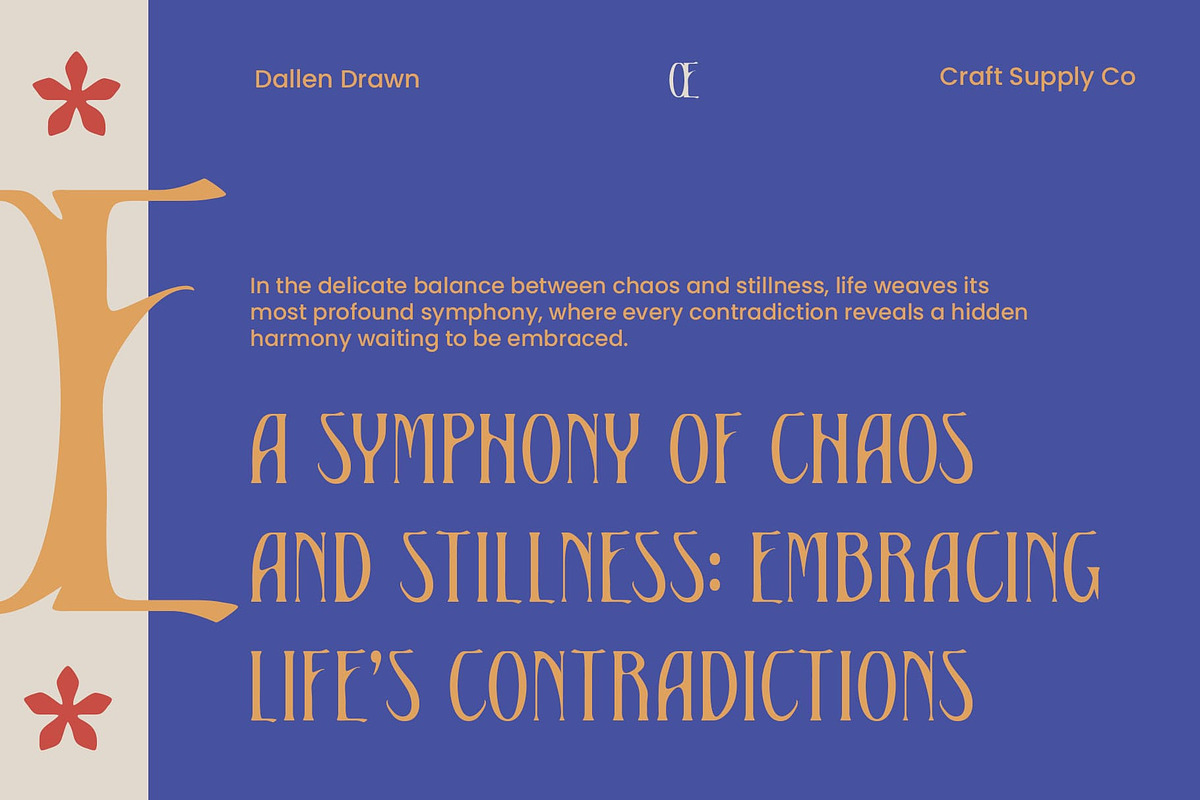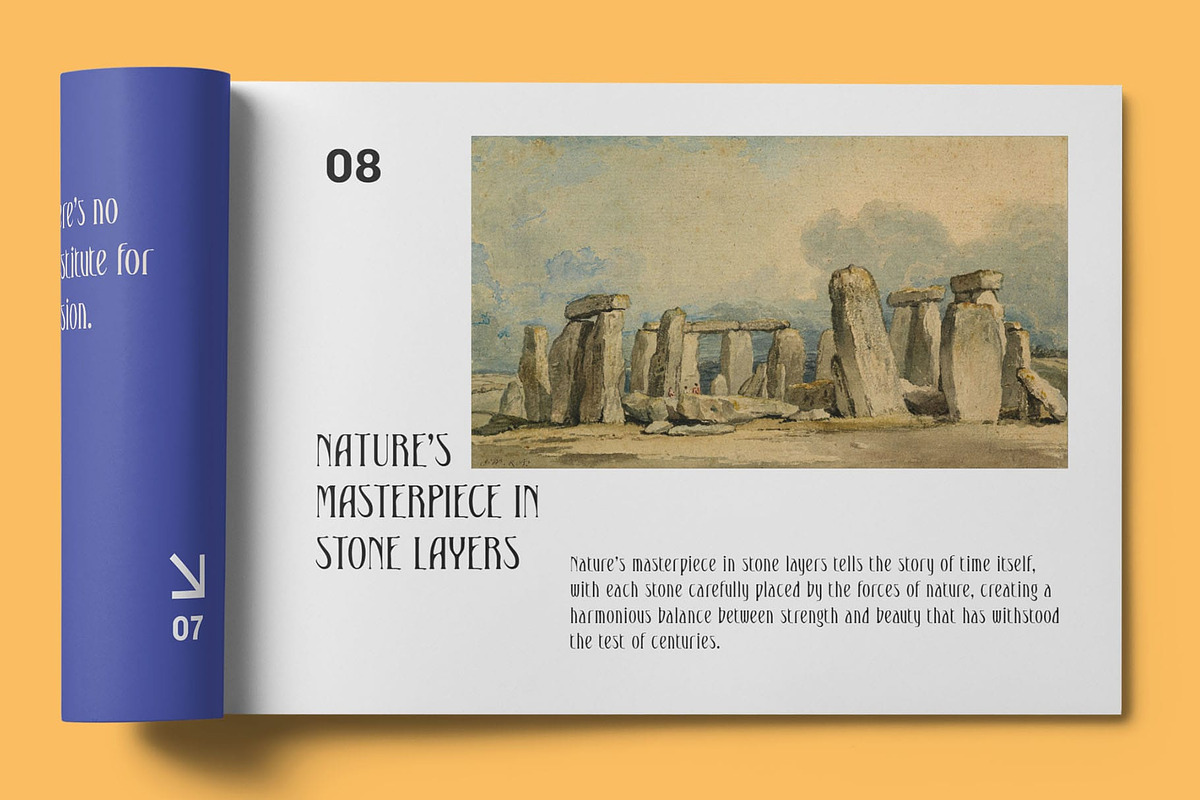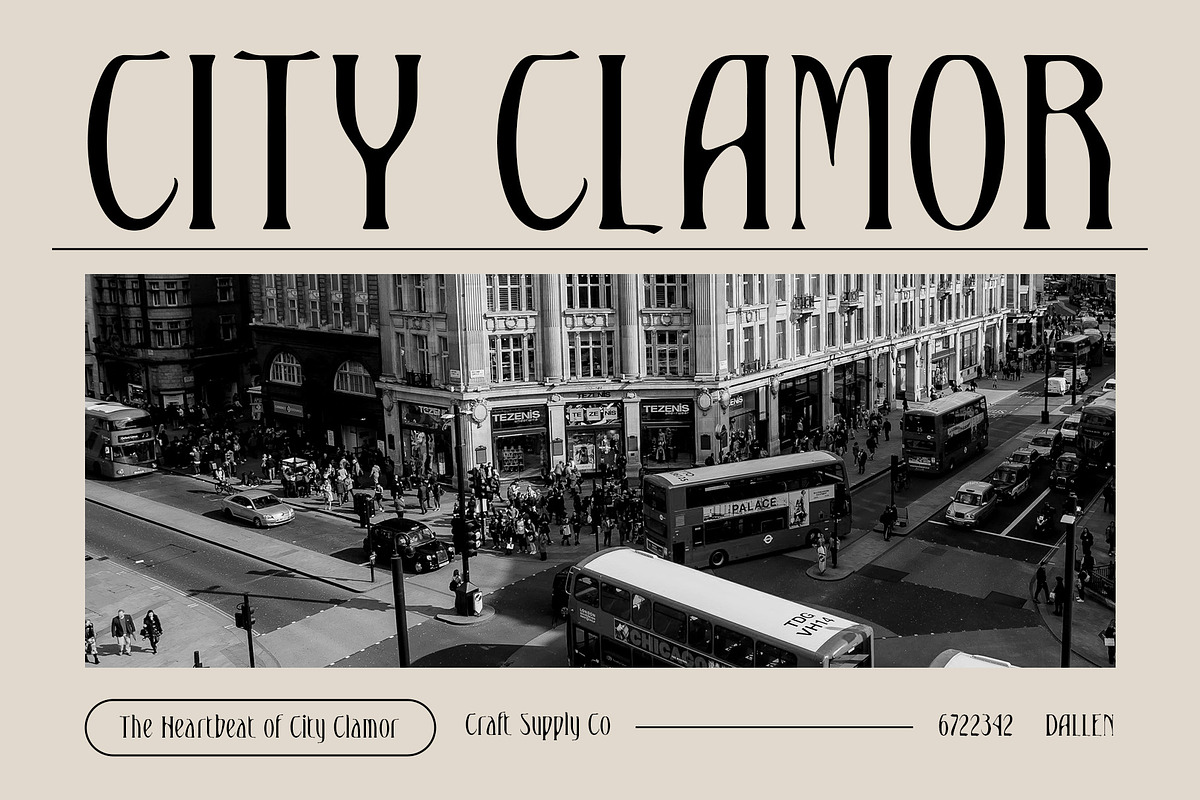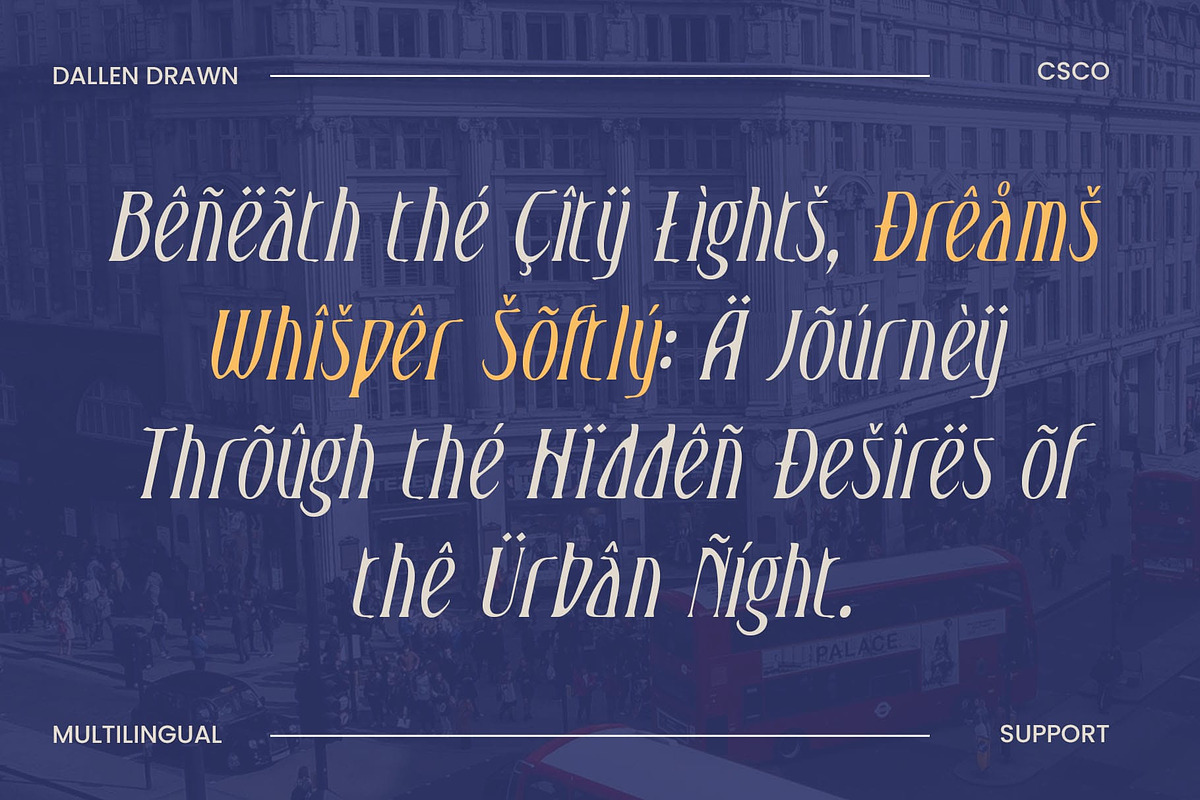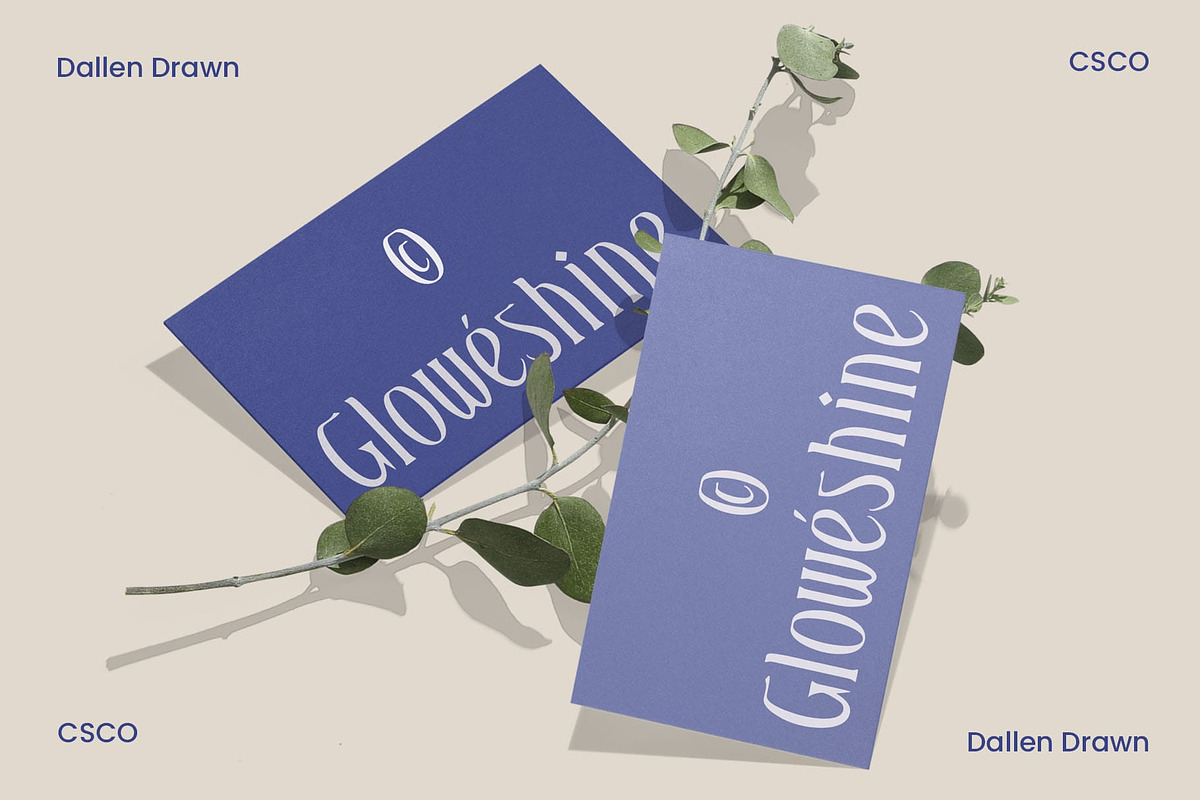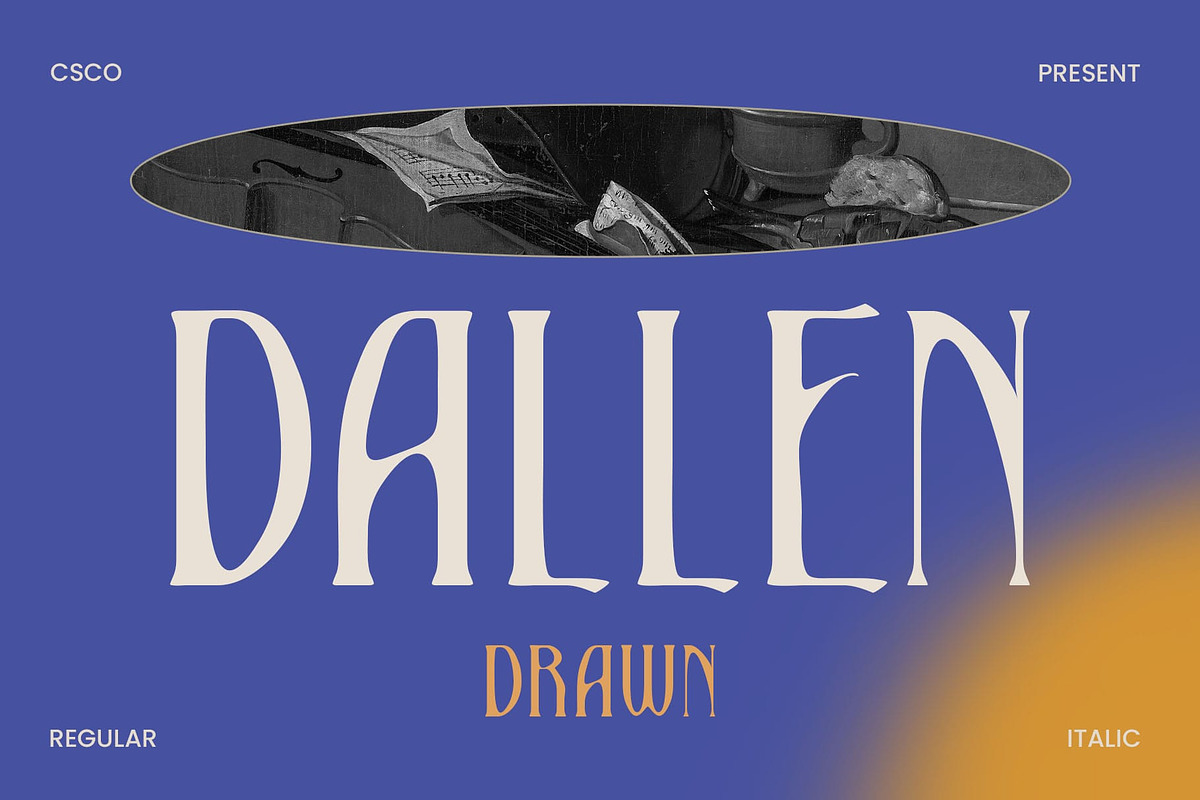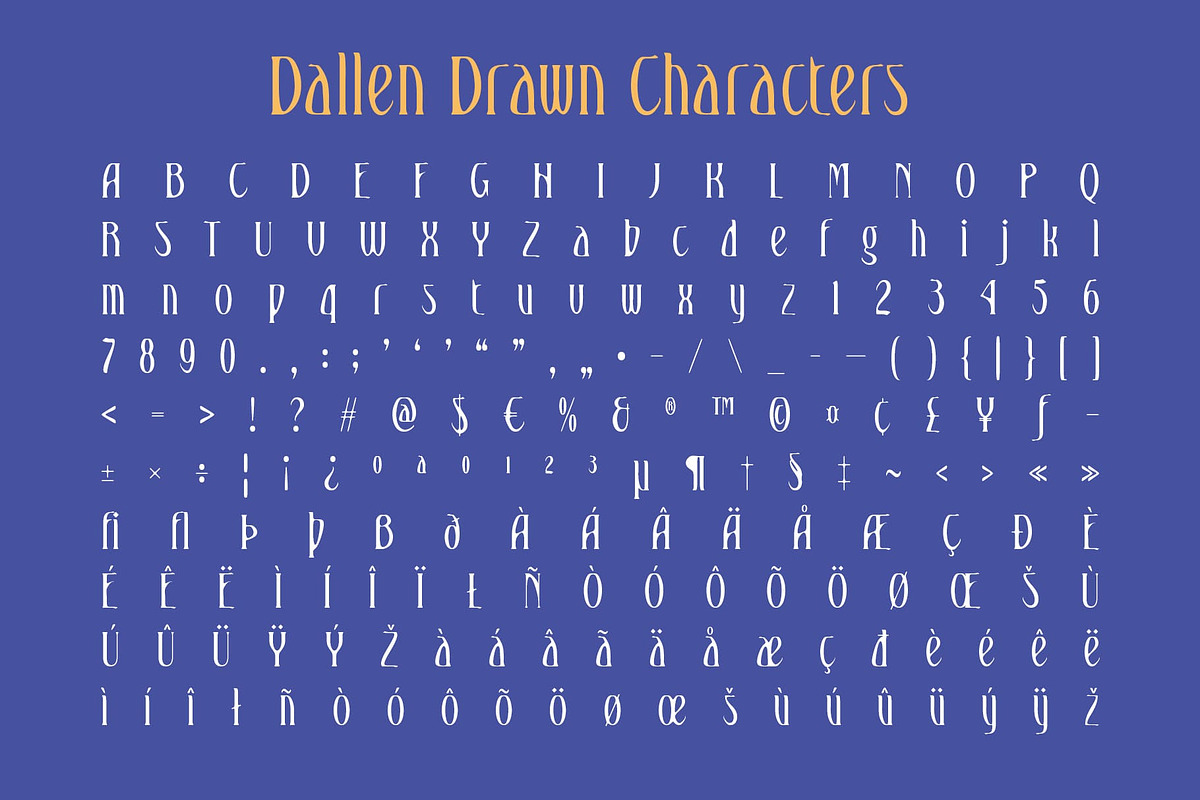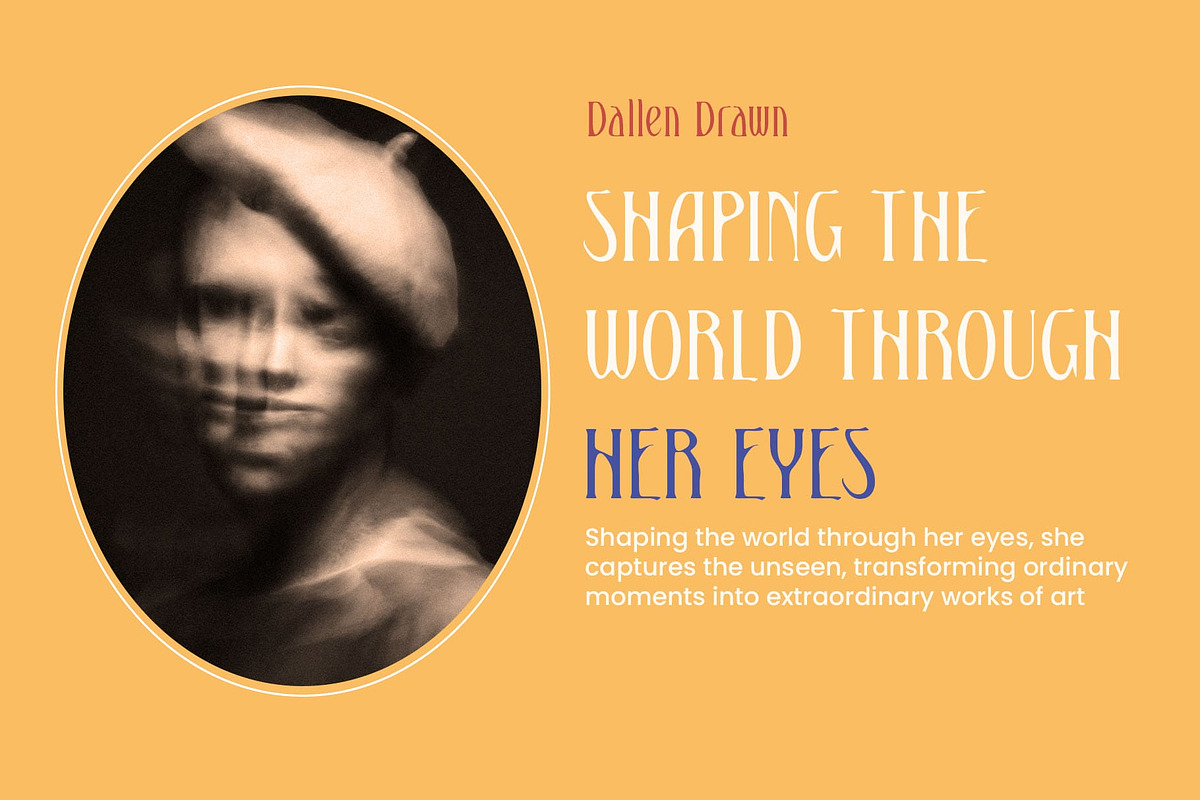
Dallen Drawn
Dallen Drawn – Elegant Serif Font with Handcrafted Detail
Sleek, Minimalist Design with Artistic Flair Dallen Drawn is a modern serif font that effortlessly combines elegance with a touch of artistic flair. Its sleek, narrow letterforms exude sophistication, offering a refined, high-end aesthetic. The font’s minimalist design creates a clean, contemporary feel, while the hand-drawn effect introduces a unique, personalized touch that elevates the overall appearance.
Perfect Balance of Elegance and Artistry This typeface strikes the perfect balance between classic elegance and creative individuality. The refined lines and narrow proportions lend a sense of modern luxury, while the handcrafted detailing ensures a distinctive, one-of-a-kind look.
Ideal for Luxury Branding and Editorial Designs Dallen Drawn is perfect for luxury branding, high-end editorial layouts, and projects that demand both elegance and a personal touch. Whether it’s for fashion, upscale product packaging, or sophisticated event invitations, this font adds a level of exclusivity and artistry to any design.
Sophisticated with a Personal Touch With its sophisticated yet artistic character, Dallen Drawn is designed for brands and creative projects that seek to make a refined statement while adding a personal, handcrafted feel. Its elegant serifs and unique detailing make it an excellent choice for luxury brands and editorial designs that require a blend of timeless beauty and creative distinction.